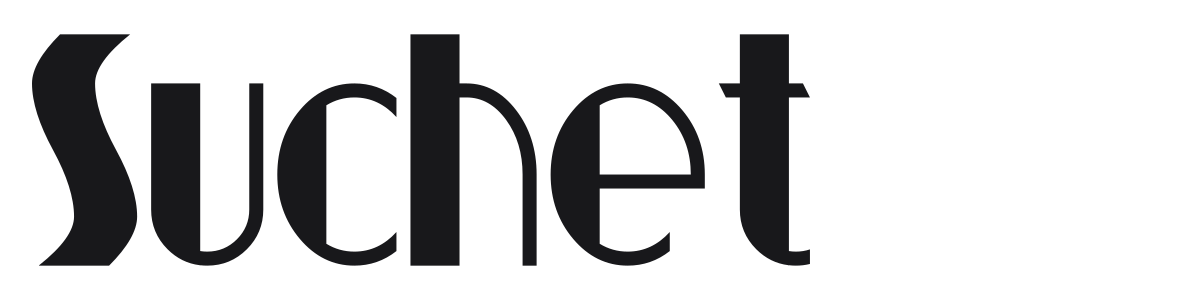
Suchet
Suchet is a bold, condensed display face from Pixel Sagas that draws heavily from Art Deco lettering traditions, with high-contrast strokes and elegant geometric proportions that recall 1920s and '30s poster typography. The tight spacing and vertical emphasis give it a formal, architectural quality while keeping things punchy enough for headlines, titles, and branding with a vintage sophistication.